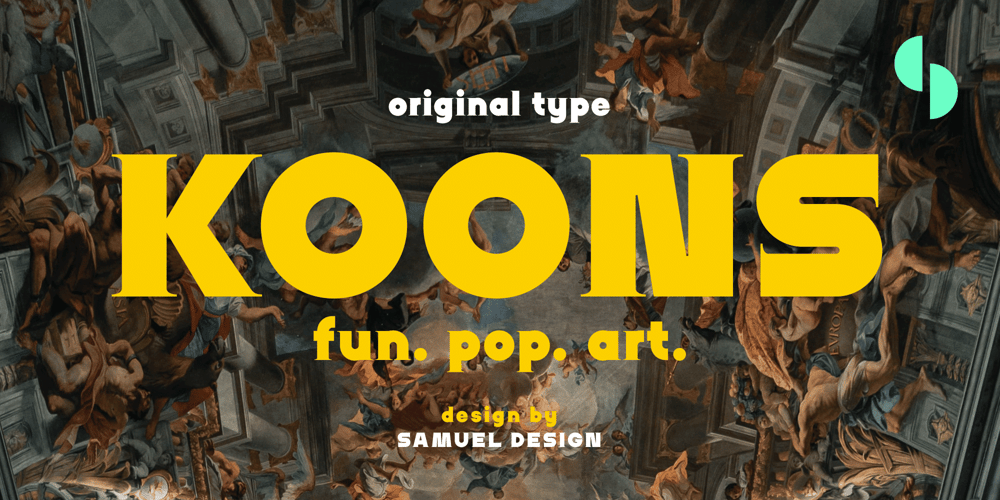
Koons Font Family was designed by SAMUEL DU and published by SAMUEL DESIGN. Koons contains 1 styles and family package options. The name of this font is KOONS, which is inspired by an artist we respect very much. The font style is optimistic and positive, with pop art features. The lines of the font are highly geometric, preserving the original combination of strokes. In terms of details, on the basis of sans serif fonts, it is equipped with detailed and fun serif details. All treatments are done to ensure that this typeface remains highly recognizable, but also has attractive details and taste.